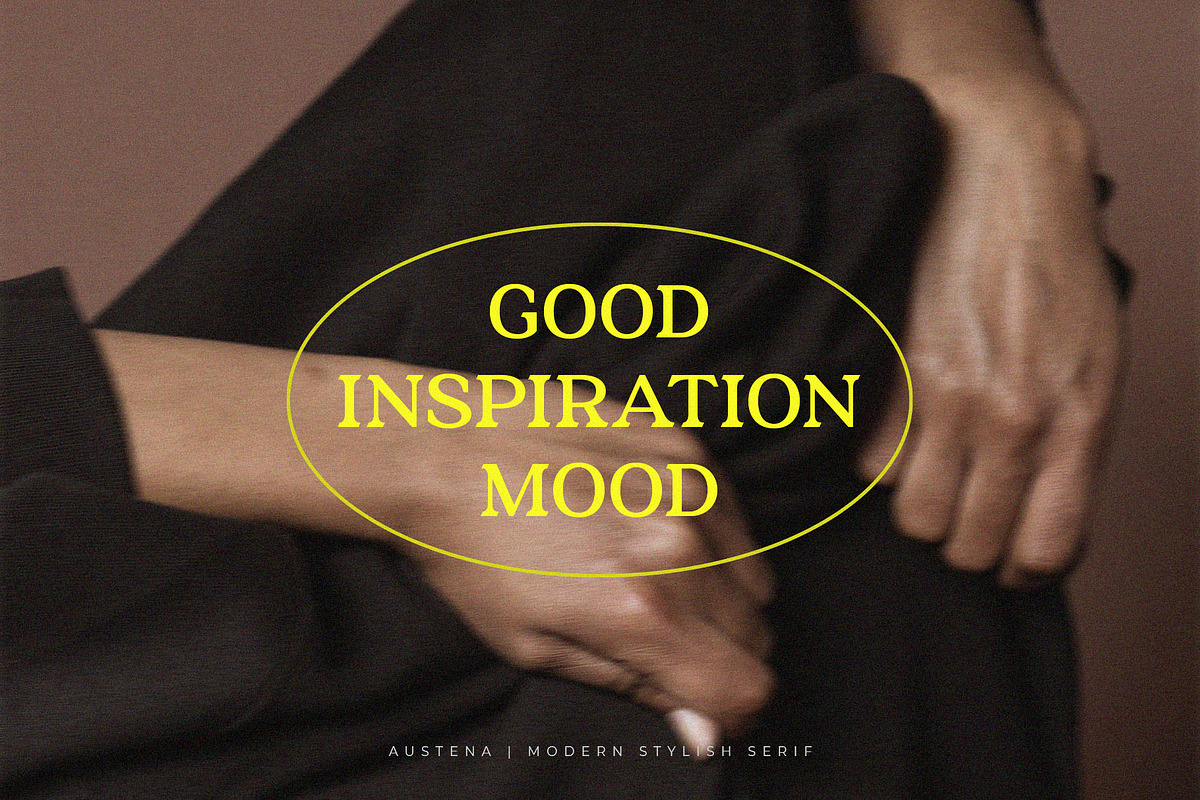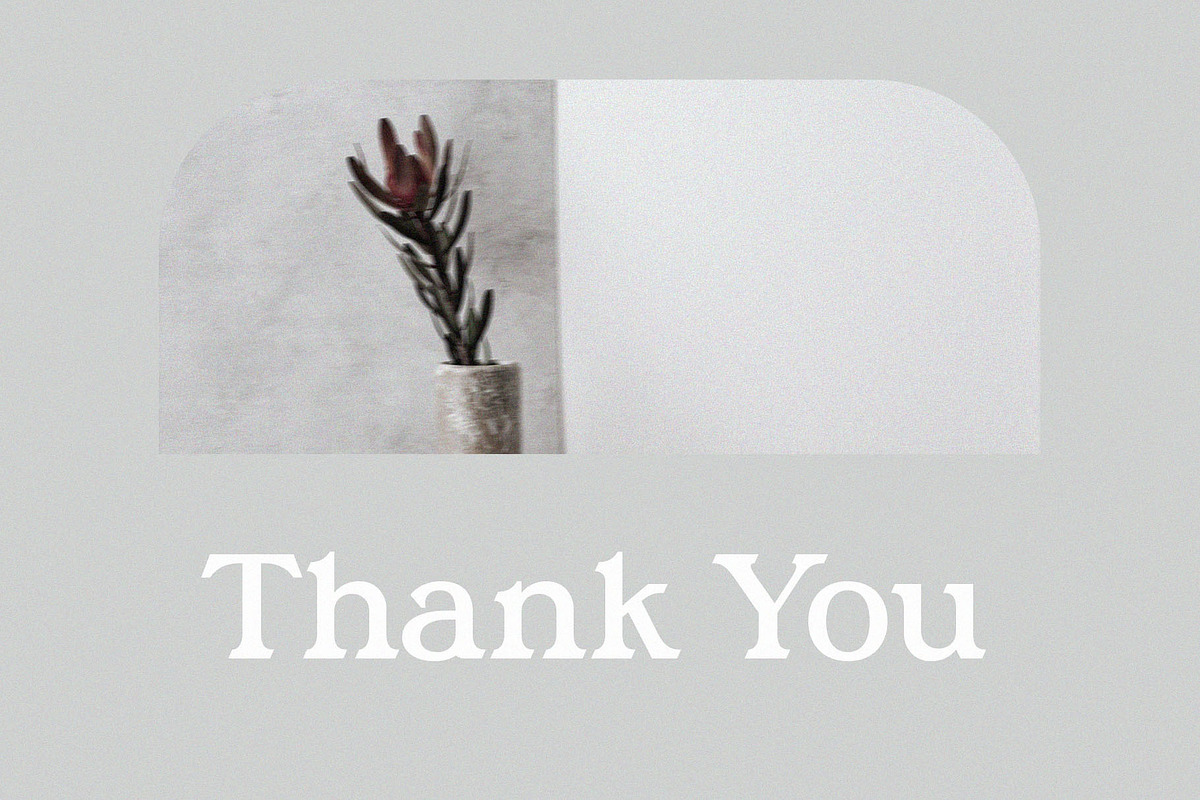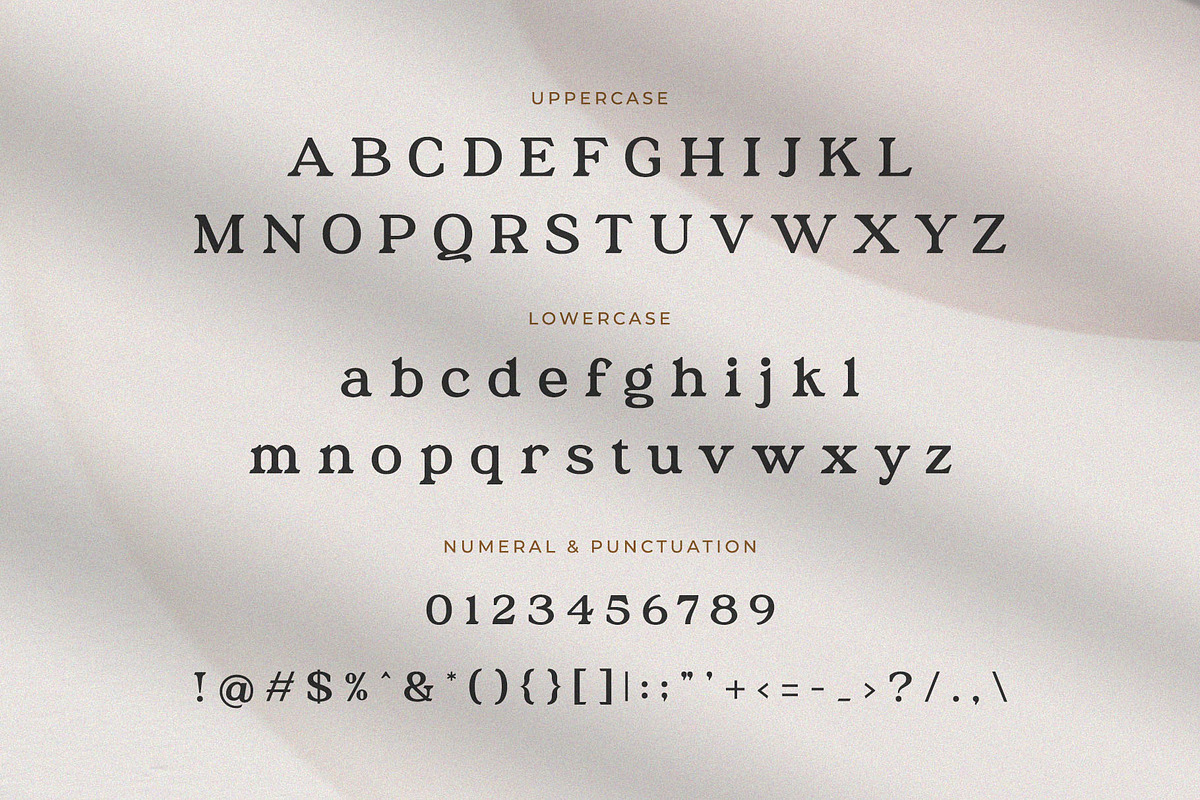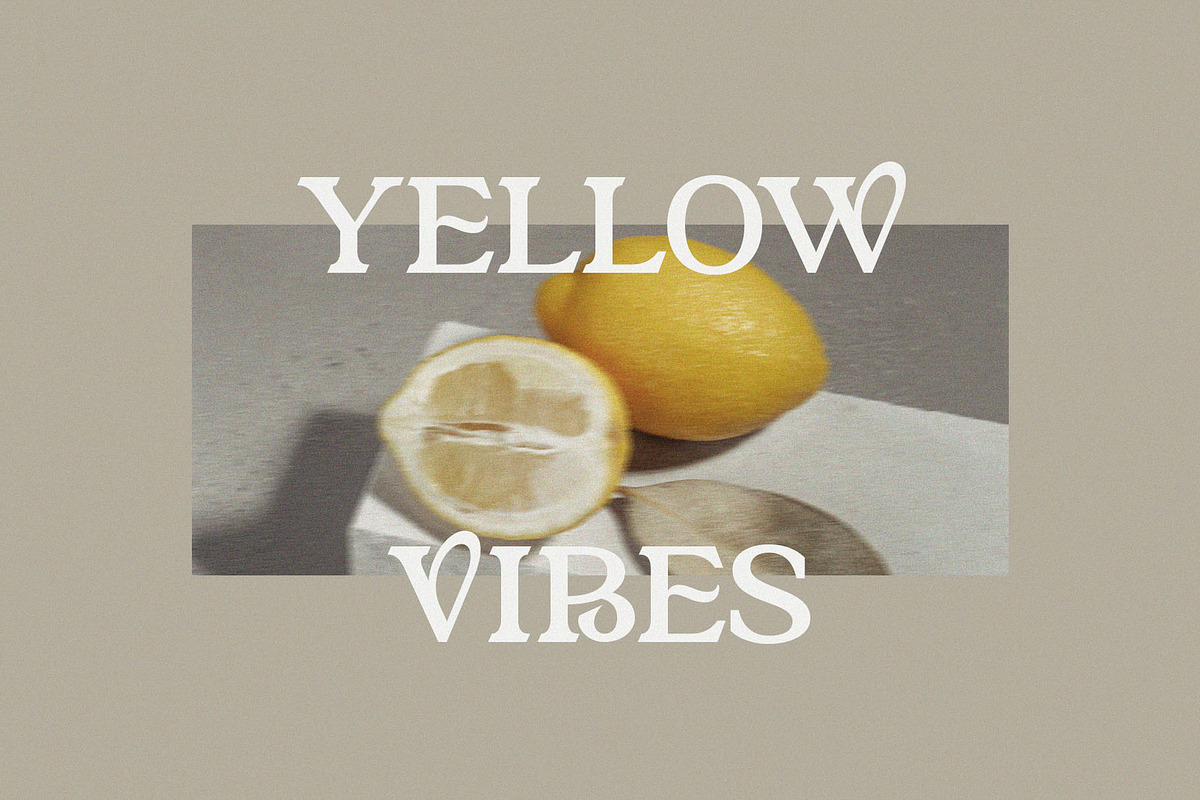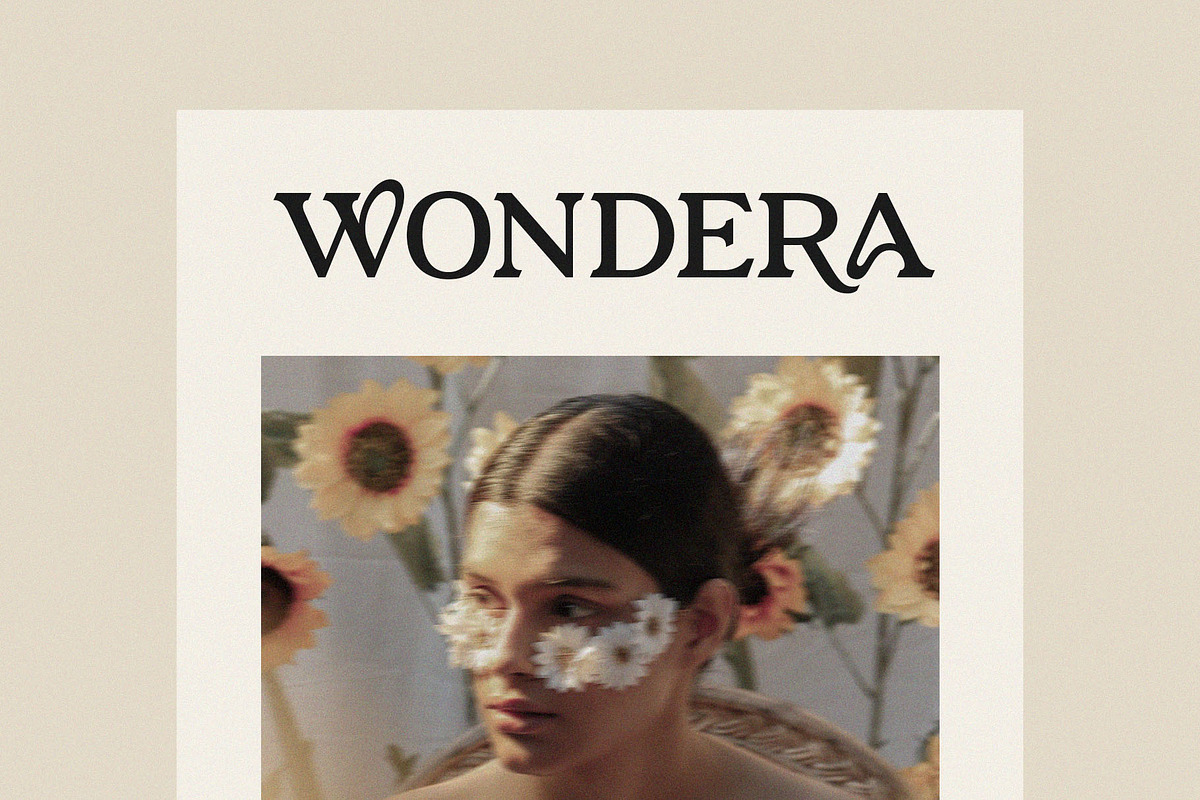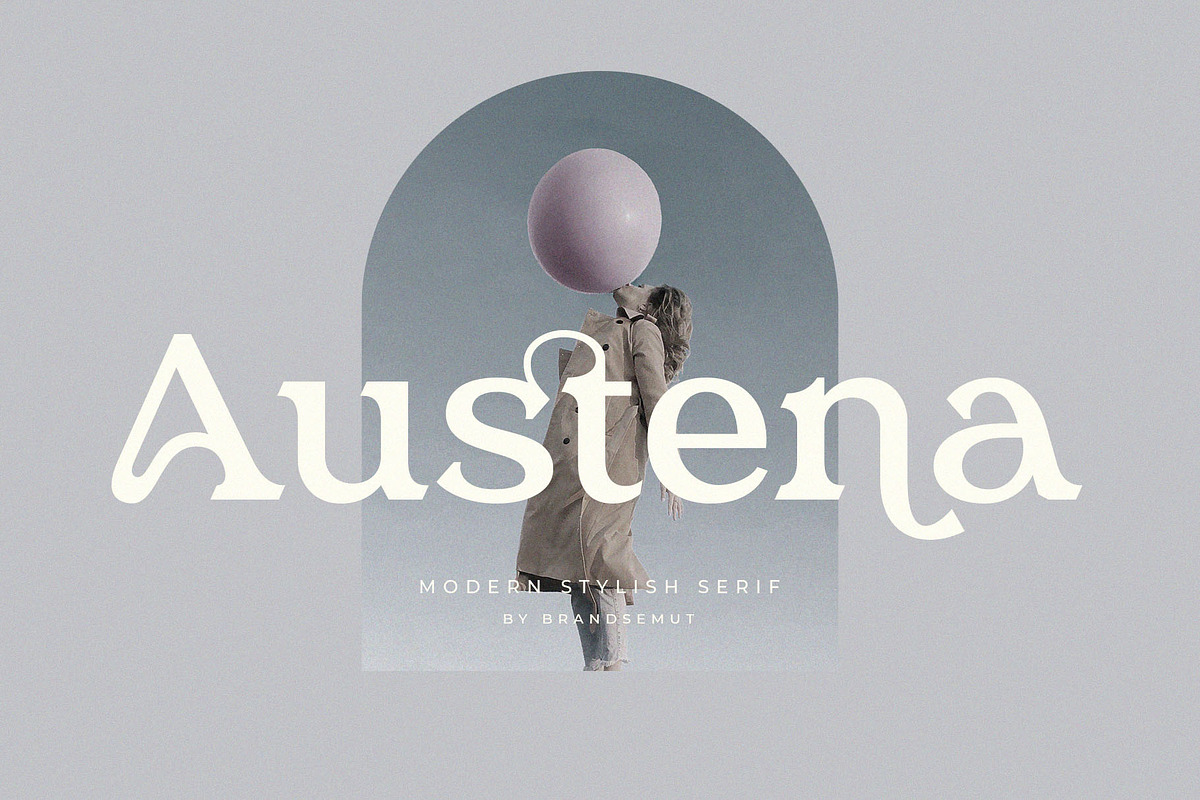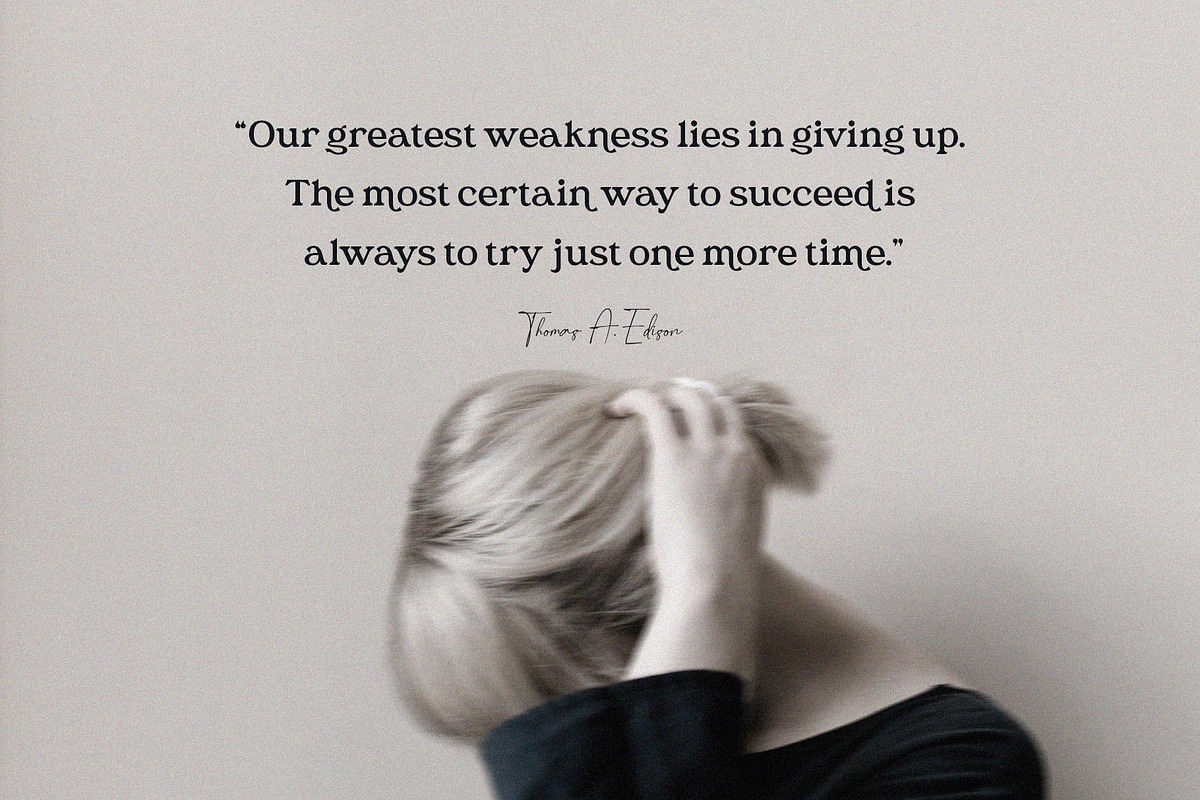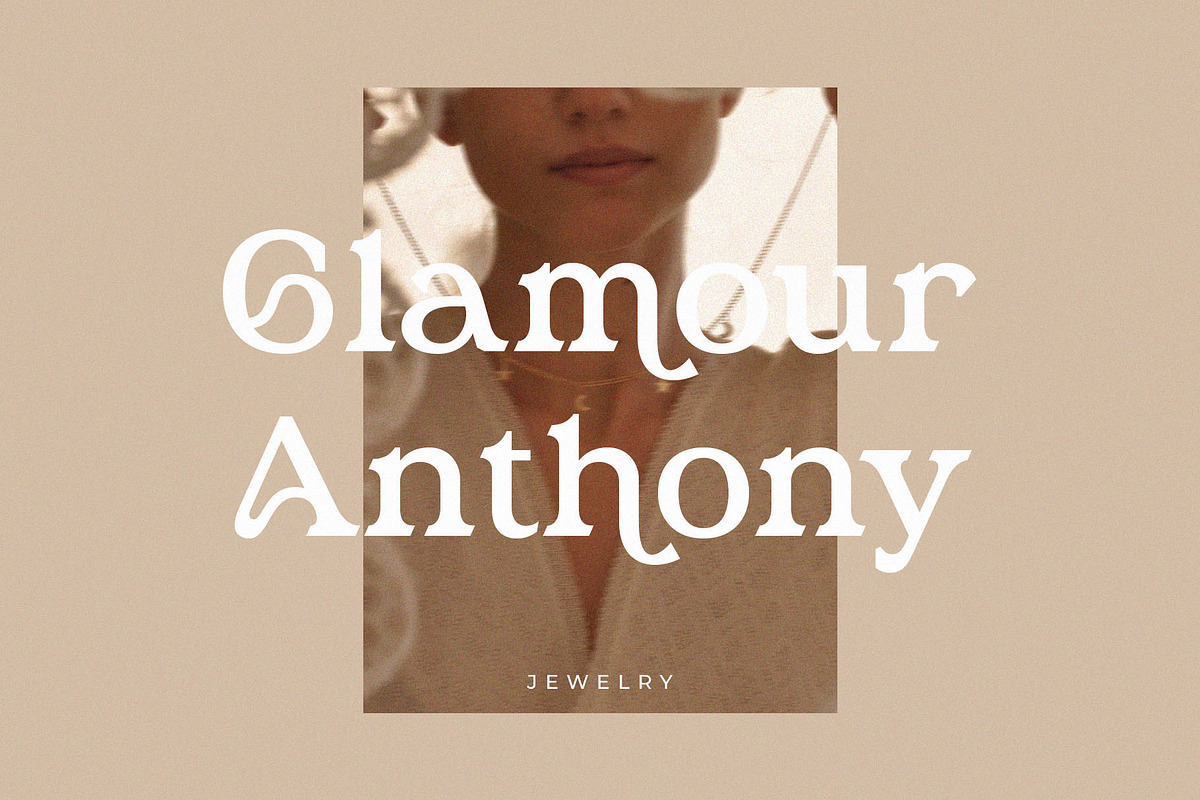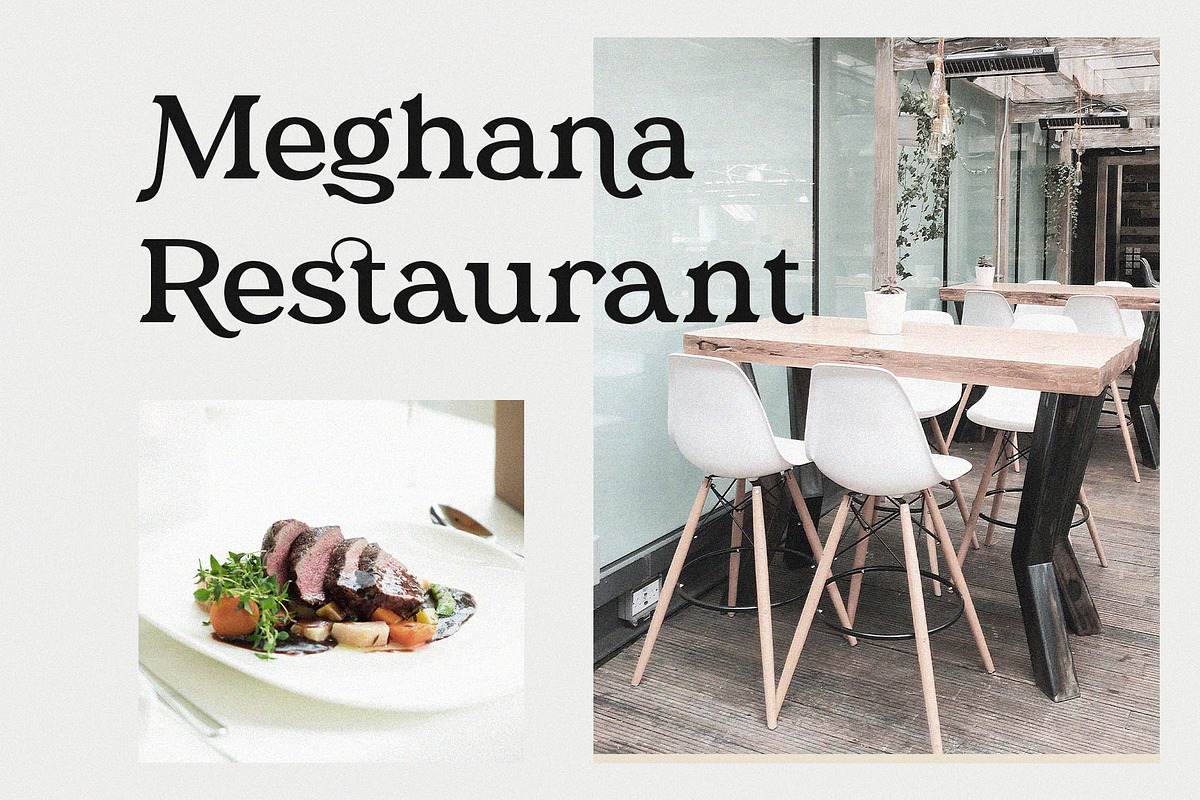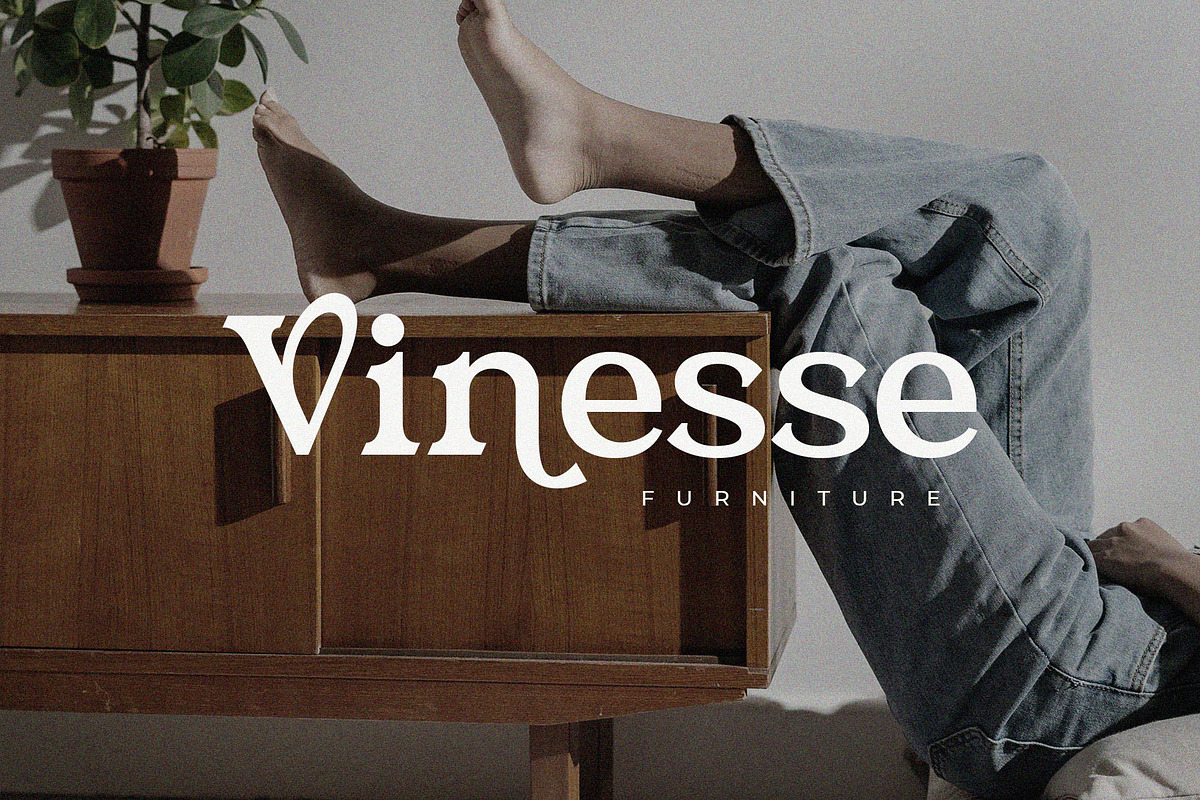
Austena – Modern Stylish Serif
Introducing Austena Modern Stylish Serif. Austena is a modern and stylish typeface, best used as a display for headings, logos, branding, magazines, product packaging and invitations. Austena come with clean lines and smooth curves give any project an extra touch of class.